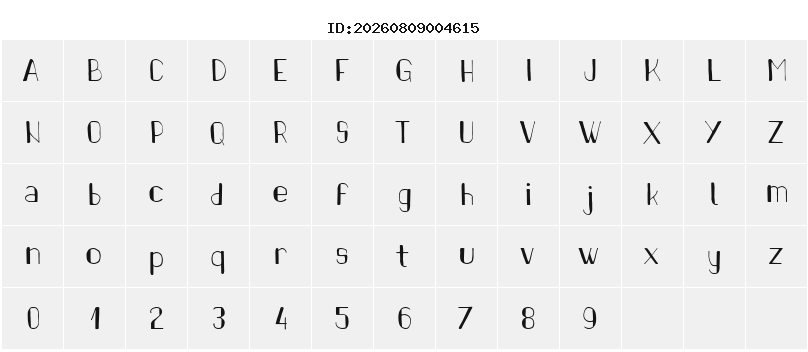
Pinon Preview
• Font Name: Pinon
• Designer: Quzma Supply Co.
• Description: Pinon Free - handdrawn stylish sans serif font
About Pinon.ttf
Pinon.ttf is a modern, elegant sans-serif font designed for ultimate readability and visual harmony. Perfect for branding, headlines, web design, and print materials.